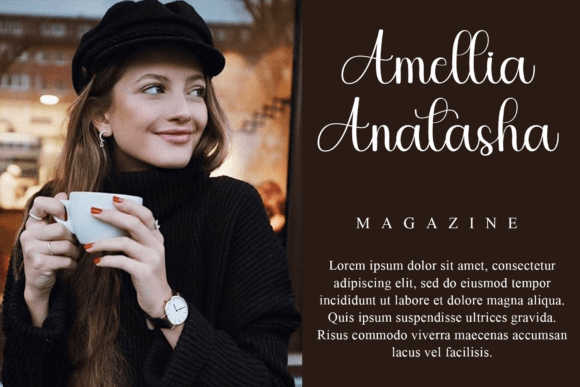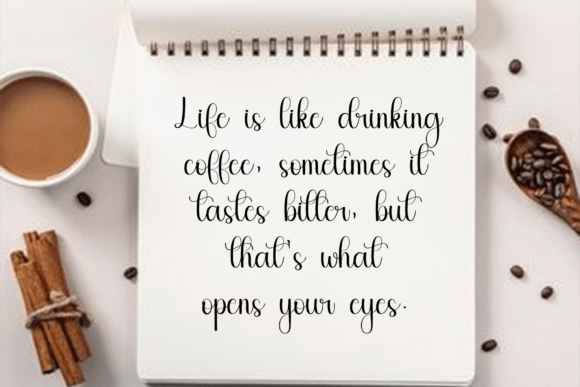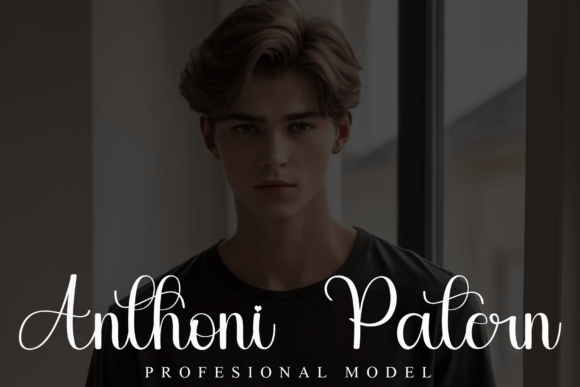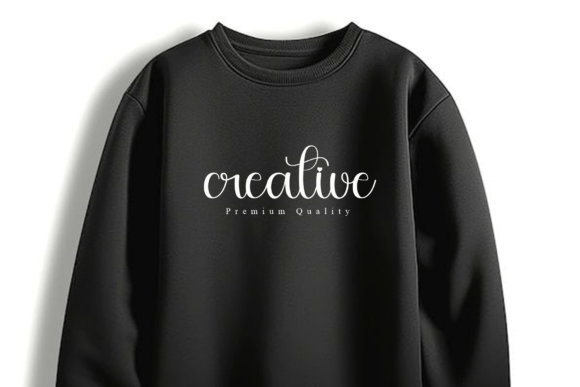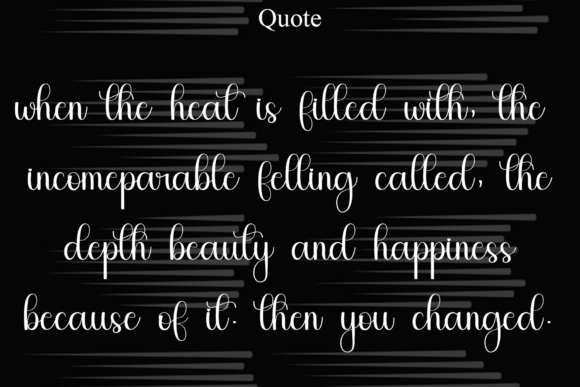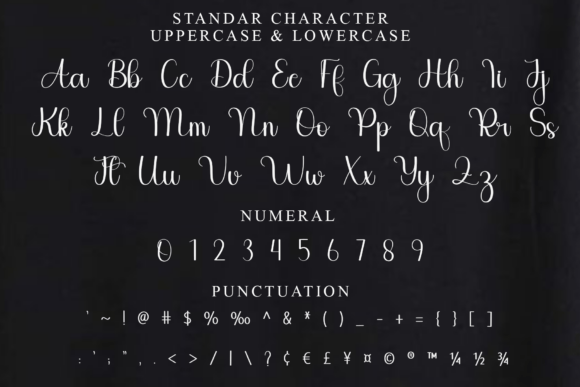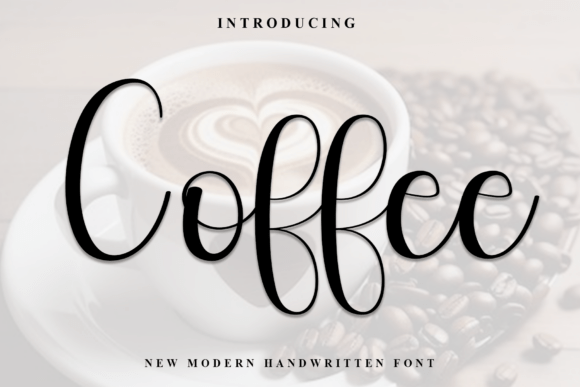
Coffee Font: The Perfect Blend of Creativity and Friendliness
Are you tired of using the same old fonts for your personal projects, invitations, and social media graphics? Look no further than the Coffee Font, a casual and creative typeface that exudes warmth and friendliness. With its round, playful strokes, this font is sure to add a relaxed and approachable feel to any design.
The Charm of Coffee Font
Coffee Font is a hand-drawn font that boasts a charming, unique aesthetic. Its playful strokes and rounded edges create a sense of warmth and approachability, making it perfect for designers and crafters who want to add a personal touch to their work. Whether you’re creating invitations, social media graphics, or personal projects, Coffee Font is sure to make your designs stand out.
Key Features of Coffee Font
• Hand-Drawn Aesthetic: The font’s charming, hand-drawn aesthetic adds a fun and unique touch to any design.
• Playful Strokes: The round, playful strokes of Coffee Font create a relaxed and approachable feel, perfect for personal projects and social media graphics.
Coffee Font is a versatile typeface that is perfect for designers and crafters who want to add a personal touch to their work. With its unique aesthetic and playful strokes, this font is ideal for a wide range of projects, including:
• Personal Projects: Use Coffee Font to add a personal touch to your personal projects, such as photo albums, scrapbooking, and more.
• Invitations: Create beautiful, one-of-a-kind invitations for special occasions, such as weddings, birthday parties, and baby showers.
• Social Media Graphics: Use Coffee Font to create eye-catching social media graphics that are sure to grab attention.
Tips for Using Coffee Font
Here are a few tips for getting the most out of Coffee Font:
• Experiment with Colors: Coffee Font looks great in a variety of colors, so don’t be afraid to experiment and find the perfect hue for your design.
• Pair with Other Fonts: Try pairing Coffee Font with other fonts to create a unique and eye-catching design.
• Use for Headings and Titles: Coffee Font is perfect for headings and titles, adding a touch of personality and whimsy to your designs.
In conclusion, Coffee Font is a unique and creative typeface that is perfect for designers and crafters who want to add a personal touch to their work. With its charming, hand-drawn aesthetic and playful strokes, this font is sure to make your designs stand out. Whether you’re creating personal projects, invitations, or social media graphics, Coffee Font is the perfect blend of creativity and friendliness.